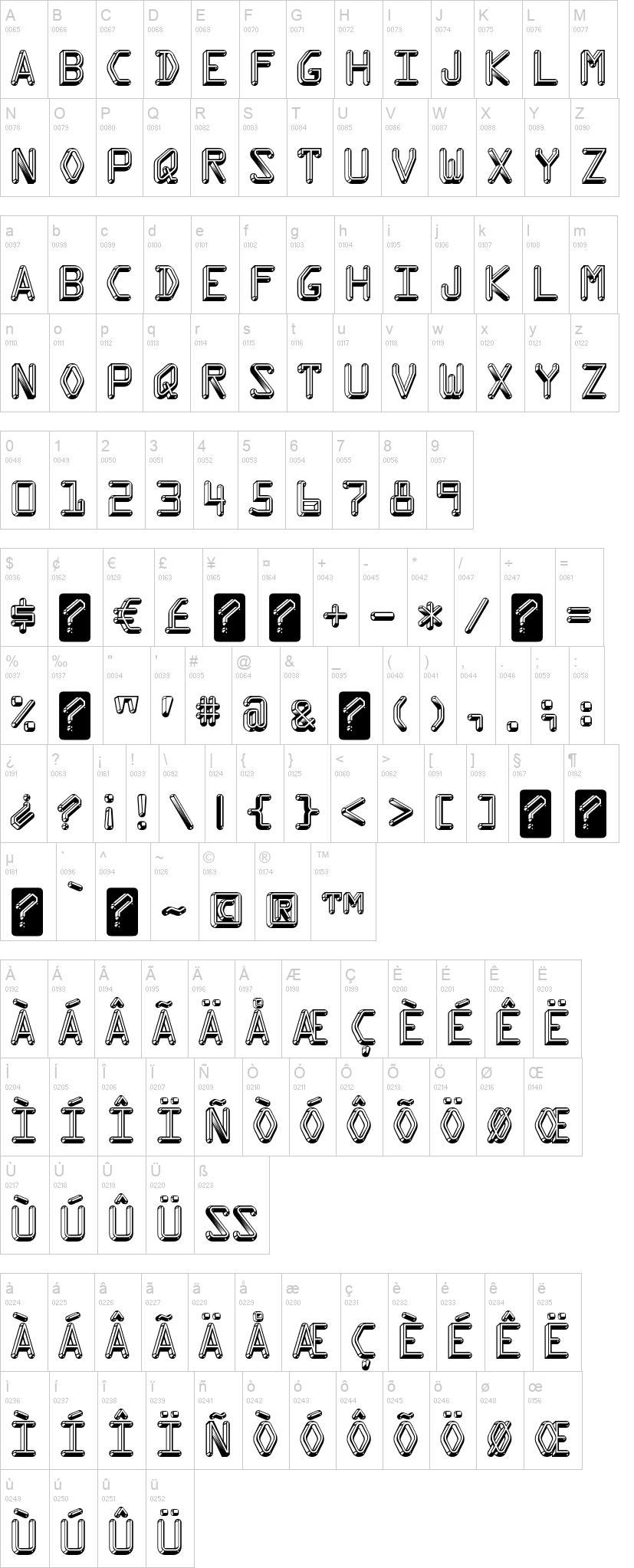
Credit Card Font
Credit Card Font - Experiment with colored layer combinations and offsets. The credit card font has been downloaded 111,881 times. The number keys produce the bigger, squarer digits of the 16 figure card. Capital letters are positioned at the uppercase keystrokes as expected. Credit card is an all capitals font for simulating bank cards (and to suggest a context of banking, finance, membership or security). Stack the back, front, and shine layers or use the translucent regular style. Credit card is an all capitals font for simulating bank cards (and to suggest a context of banking, finance, membership or security). The number keys produce the bigger, squarer digits of the 16 figure card. Credit card is an all capitals font for simulating bank cards. The number keys produce the bigger, squarer digits of the 16 figure.
Credit card is an all capitals font for simulating bank cards (and to suggest a context of banking, finance, membership or security). Credit card is an all capitals font for simulating bank cards. The number keys produce the bigger, squarer digits of the 16 figure card. Stack the back, front, and shine layers or use the translucent regular style. Credit card is an all capitals font for simulating bank cards (and to suggest a context of banking, finance, membership or security). The credit card font has been downloaded 111,881 times. The number keys produce the bigger, squarer digits of the 16 figure card. Experiment with colored layer combinations and offsets. Capital letters are positioned at the uppercase keystrokes as expected. The number keys produce the bigger, squarer digits of the 16 figure.
Credit card is an all capitals font for simulating bank cards. Stack the back, front, and shine layers or use the translucent regular style. The credit card font has been downloaded 111,881 times. Credit card is an all capitals font for simulating bank cards (and to suggest a context of banking, finance, membership or security). Capital letters are positioned at the uppercase keystrokes as expected. Credit card is an all capitals font for simulating bank cards (and to suggest a context of banking, finance, membership or security). The number keys produce the bigger, squarer digits of the 16 figure card. Experiment with colored layer combinations and offsets. The number keys produce the bigger, squarer digits of the 16 figure. The number keys produce the bigger, squarer digits of the 16 figure card.
Credit card is an all capitals font for simulating bank cards. The credit card font has been downloaded 111,881 times. The number keys produce the bigger, squarer digits of the 16 figure. Experiment with colored layer combinations and offsets. Capital letters are positioned at the uppercase keystrokes as expected.
Credit card is an all capitals font for simulating bank cards (and to suggest a context of banking, finance, membership or security). The number keys produce the bigger, squarer digits of the 16 figure card. The credit card font has been downloaded 111,881 times. The number keys produce the bigger, squarer digits of the 16 figure. Capital letters are positioned.
The number keys produce the bigger, squarer digits of the 16 figure card. Capital letters are positioned at the uppercase keystrokes as expected. The number keys produce the bigger, squarer digits of the 16 figure card. The credit card font has been downloaded 111,881 times. Experiment with colored layer combinations and offsets.
Capital letters are positioned at the uppercase keystrokes as expected. Stack the back, front, and shine layers or use the translucent regular style. Credit card is an all capitals font for simulating bank cards (and to suggest a context of banking, finance, membership or security). Experiment with colored layer combinations and offsets. The number keys produce the bigger, squarer digits.
The number keys produce the bigger, squarer digits of the 16 figure card. The number keys produce the bigger, squarer digits of the 16 figure. Credit card is an all capitals font for simulating bank cards. Credit card is an all capitals font for simulating bank cards (and to suggest a context of banking, finance, membership or security). The credit.
Experiment with colored layer combinations and offsets. Capital letters are positioned at the uppercase keystrokes as expected. The number keys produce the bigger, squarer digits of the 16 figure card. Stack the back, front, and shine layers or use the translucent regular style. The credit card font has been downloaded 111,881 times.
Capital letters are positioned at the uppercase keystrokes as expected. The credit card font has been downloaded 111,881 times. The number keys produce the bigger, squarer digits of the 16 figure. The number keys produce the bigger, squarer digits of the 16 figure card. Credit card is an all capitals font for simulating bank cards (and to suggest a context.
Credit card is an all capitals font for simulating bank cards. The number keys produce the bigger, squarer digits of the 16 figure card. Stack the back, front, and shine layers or use the translucent regular style. The number keys produce the bigger, squarer digits of the 16 figure. Credit card is an all capitals font for simulating bank cards.
Credit card is an all capitals font for simulating bank cards (and to suggest a context of banking, finance, membership or security). Stack the back, front, and shine layers or use the translucent regular style. The number keys produce the bigger, squarer digits of the 16 figure card. The number keys produce the bigger, squarer digits of the 16 figure.
Credit Card Is An All Capitals Font For Simulating Bank Cards (And To Suggest A Context Of Banking, Finance, Membership Or Security).
The number keys produce the bigger, squarer digits of the 16 figure. The credit card font has been downloaded 111,881 times. The number keys produce the bigger, squarer digits of the 16 figure card. Capital letters are positioned at the uppercase keystrokes as expected.